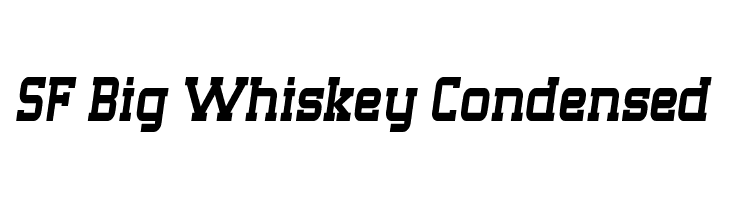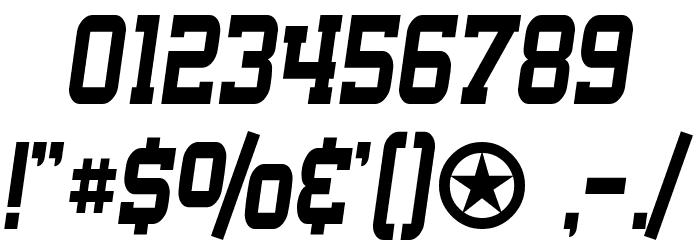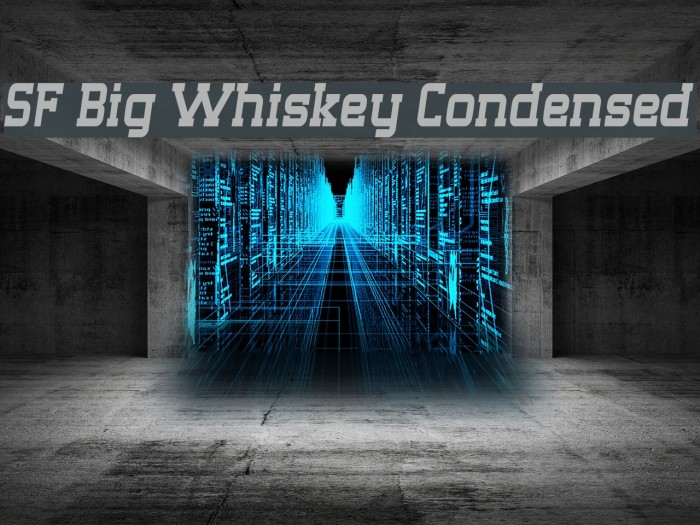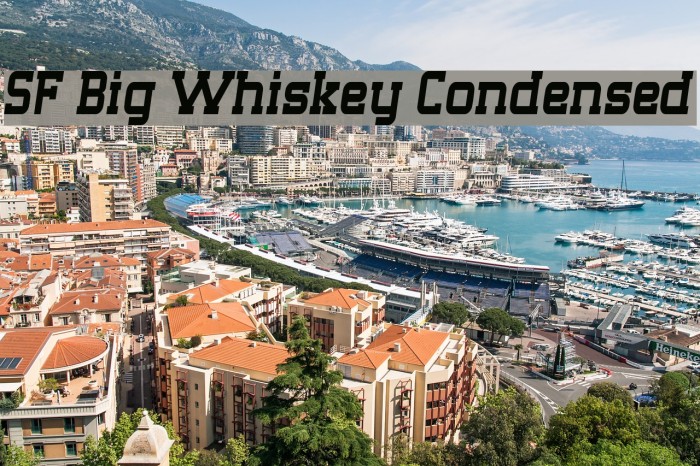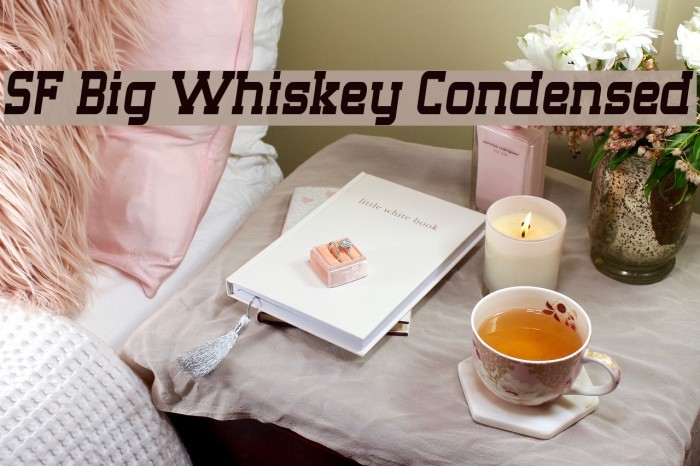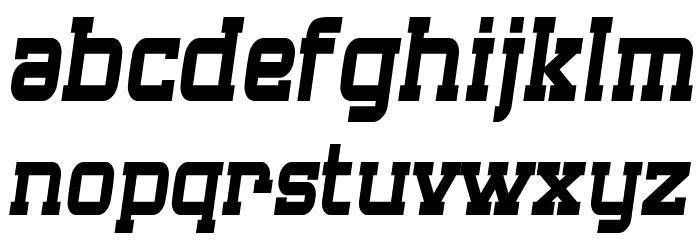
SF Big Whiskey Condensed Font
SF Big Whiskey Condensed Description
This font features a bold, condensed style with a strong presence. The characters have a distinct, angular design with sharp edges and a slight slant, giving them a dynamic and energetic appearance. The uppercase letters are particularly striking, with a uniform height and consistent spacing that enhances readability. The lowercase letters maintain the same angular aesthetic, providing a cohesive look across different text sizes. Numbers and special characters are designed to match the boldness and style of the alphabet, ensuring a seamless integration in various contexts. The overall design is modern and impactful, making it suitable for attention-grabbing headlines and titles.
A bold, condensed font with angular, slanted characters for a dynamic look from Script fonts.
- Proposed Projects: Ideal for posters, branding, and headlines where a strong, modern impact is desired.